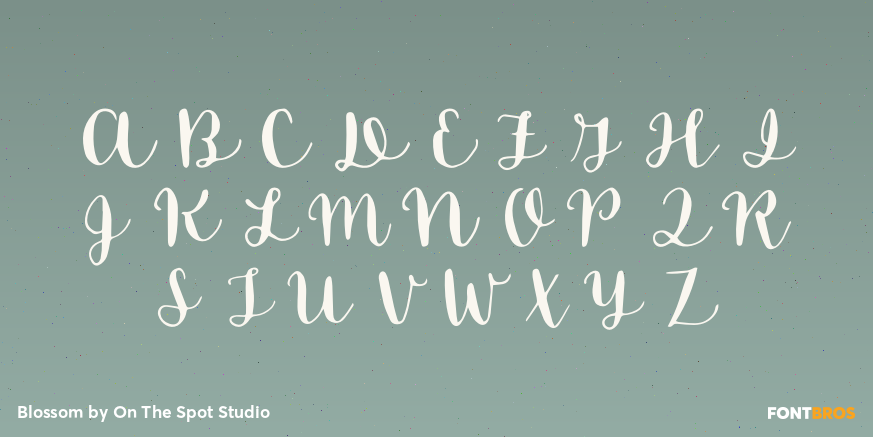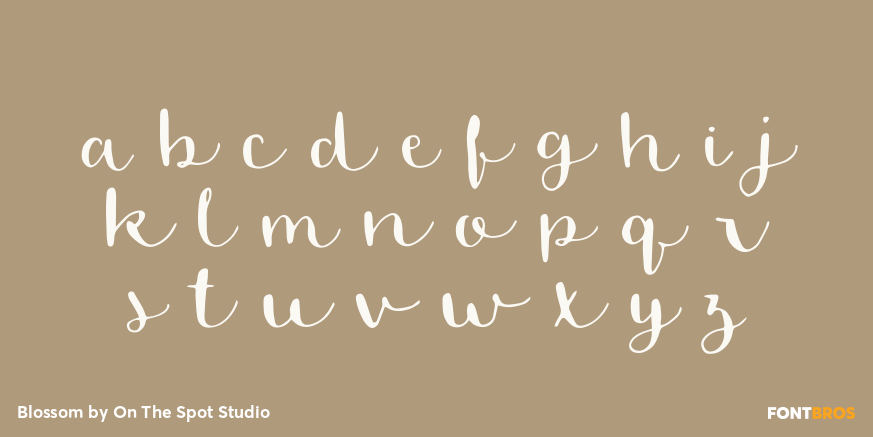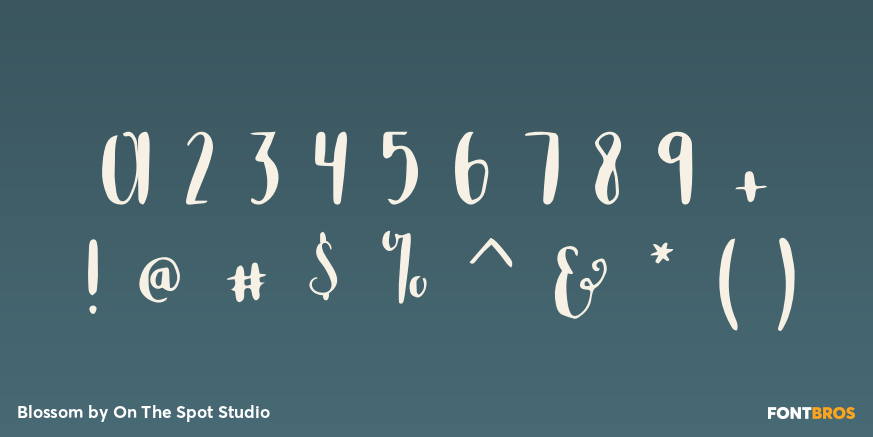
Blossom
Font Family by On The Spot Studio
Blossom is a fun modern calligraphy font with both left and right swashes included for maximum customization! Includes numbers & punctuation, uppercase & lowercase letters. commercial use OK